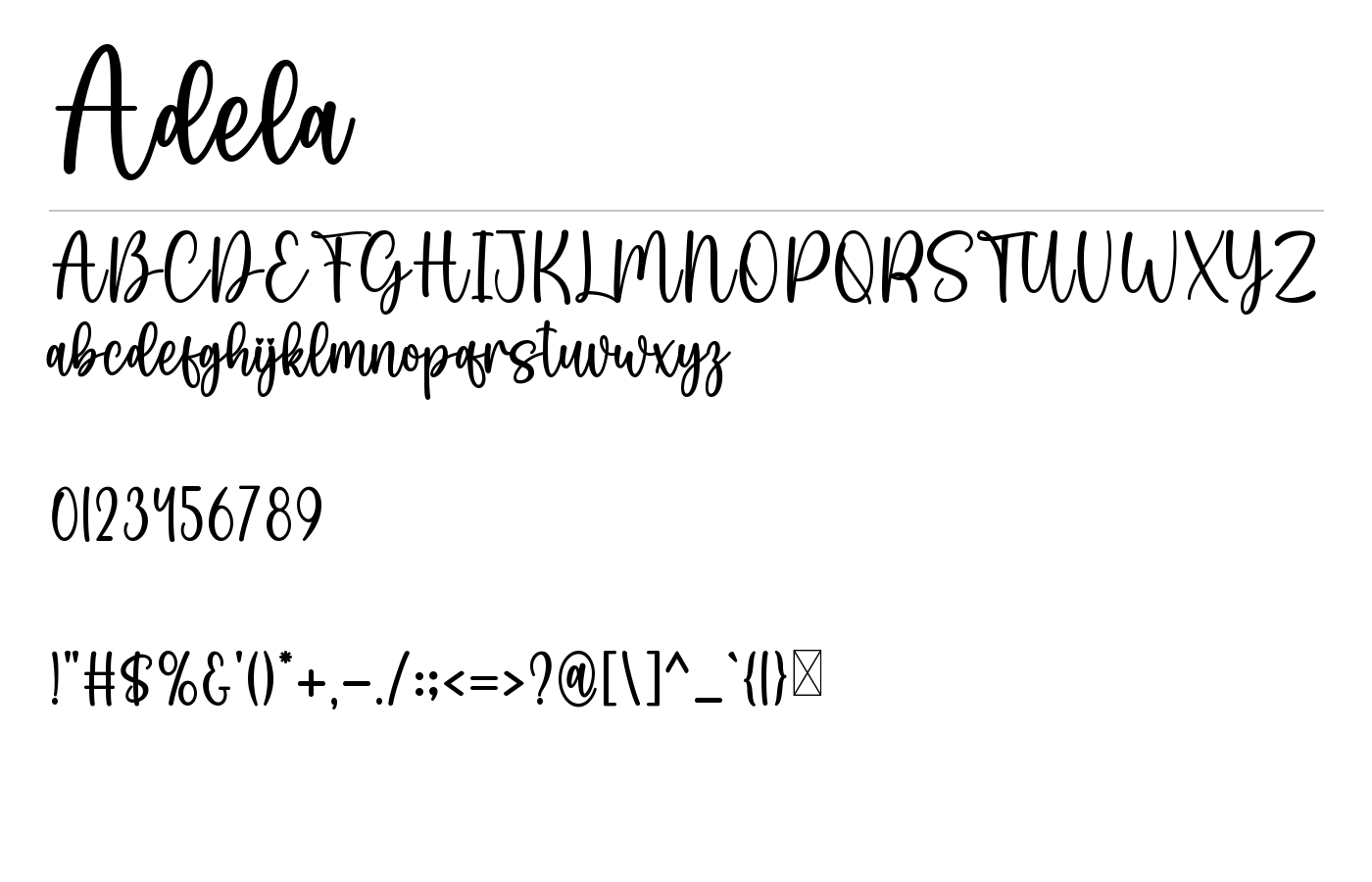
Adela is a casual, handwritten script font with a lively and friendly character, featuring smooth, flowing strokes and a medium weight that feels approachable and charming. Its tall x-height and slightly condensed letterforms make it legible while retaining a personal, authentic touch, perfect for branding, invitations, and creative projects that want a warm, handcrafted feel. This font works beautifully in designs that require a modern yet playful script style that conveys friendliness and creativity.
Adela Font
About Adela Font
| Font family | Adela Font |
| Designer | Wahyu Setiyawan |